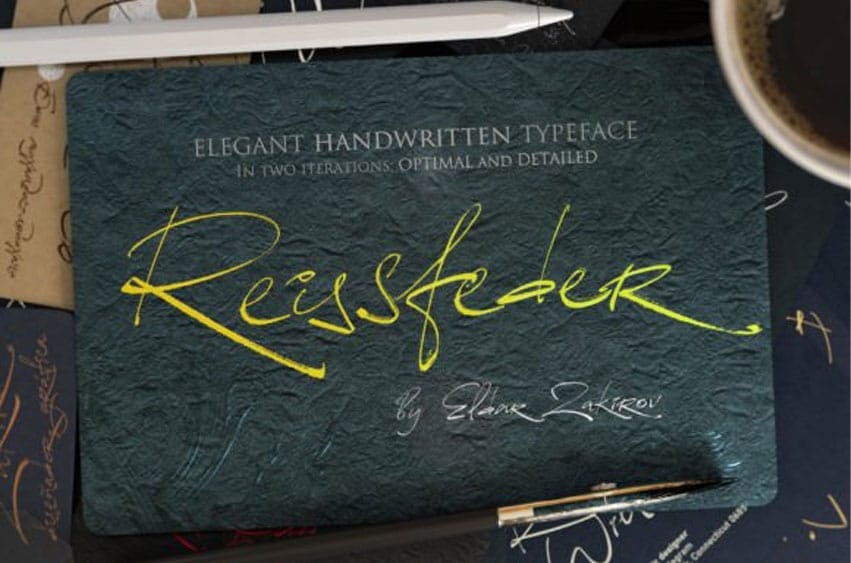
Reissfeder Font is an elegant and stylish handwritten font that combines flowing, delicate strokes with bold, confident lines to create a sophisticated look. The balance of intricacy and simplicity makes it perfect for high-end brands or special occasions. The script’s unique personality is sure to make an impact on any design project.